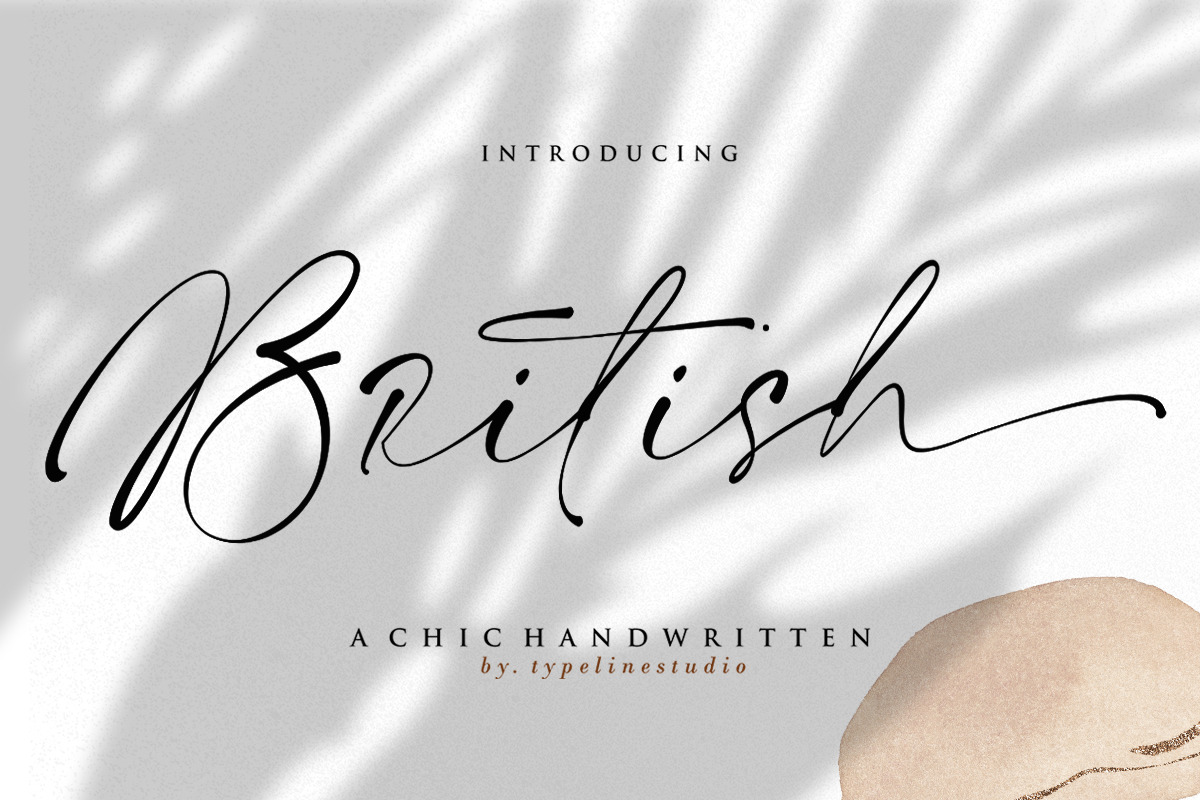
British a chic and modern, natural, organic, handwritten font, Mother Austin features ligatures and swashes to add a realistic hand-lettered style to your work. This elegant typeface is a great choice for creating signature watermarks and logos, as well as for wedding invitations. Includes the bonus 40 eps flower illustration, you everything you need to create clean, clear , modern,chic, designs that get the job done.
Highlights:
Modern, chic calligraphy font. Excellent choice for creating signature logos, watermarks, wedding invitations, logos and any other elegant works.
- Includes full set of uppercase and lowercase letters, numerals and punctuation.
- OpenType features include swashes and ligatures.